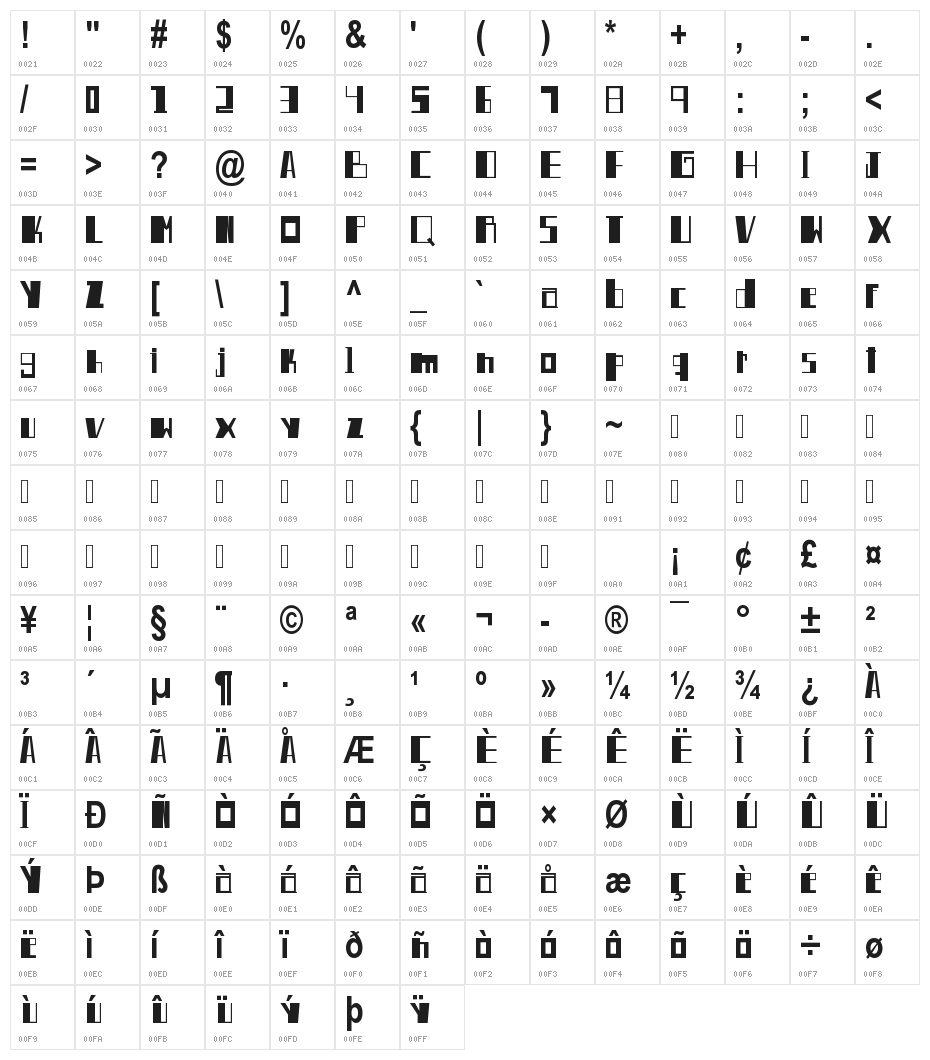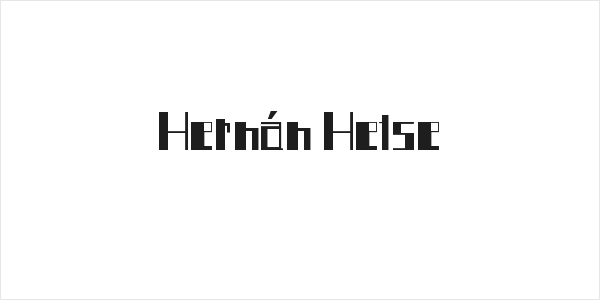
Hernán Heise Font
Hernán Heise Description
This font features a bold, geometric design with a strong emphasis on angular shapes and sharp edges. The characters are constructed with a mix of thick and thin strokes, creating a dynamic and eye-catching appearance. The uppercase letters are particularly striking, with unique cutouts and varying line weights that add a sense of movement and energy. The lowercase letters maintain the same geometric style, ensuring consistency throughout the typeface. Numbers and special characters are designed to match the bold and modern aesthetic, making this font suitable for a variety of creative applications.
| Proposed Projects | Ideal for branding, posters, album covers, and any project requiring a modern, edgy look. |